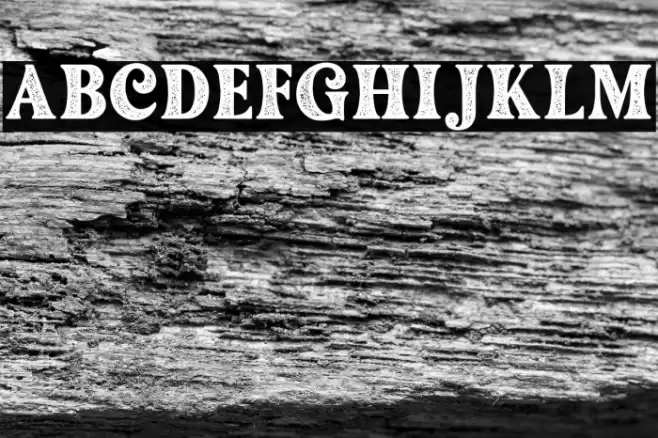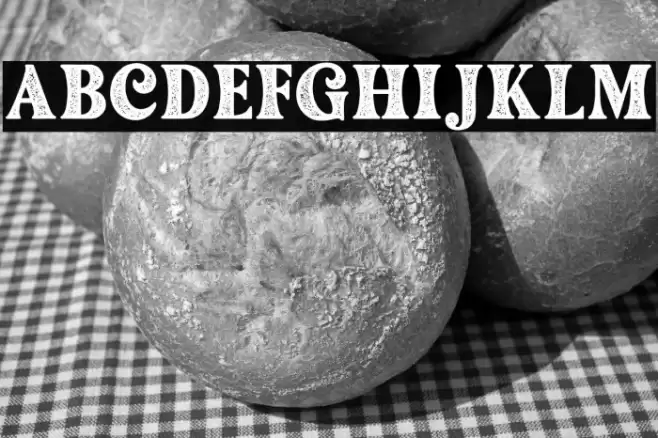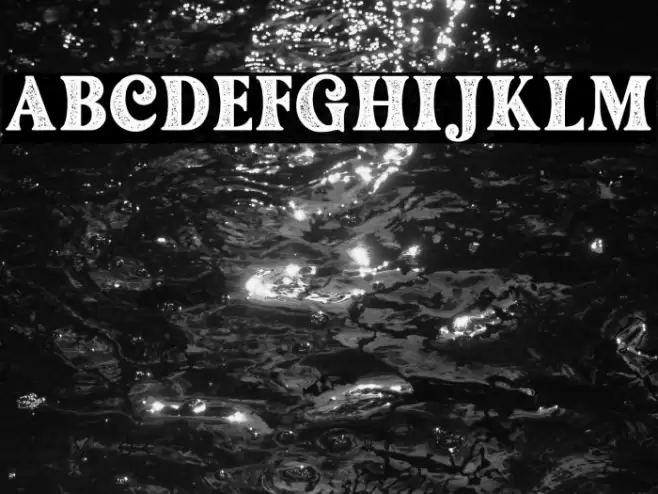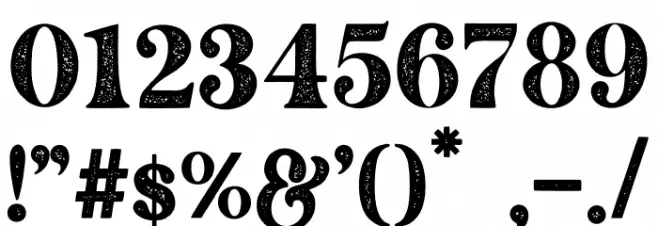
Fashion Stamp Font
Fashion Stamp Description
This font features a bold and decorative style with a textured, distressed appearance reminiscent of vintage stamps. The uppercase and lowercase letters are well-defined with thick strokes and a unique pattern that gives each character a distinct look. The numbers and special characters maintain the same textured style, adding to the overall cohesive design. The font's boldness and decorative elements make it stand out, suitable for projects that require a strong visual impact.
A bold, decorative font with a textured, vintage stamp-like appearance from Uncategorized fonts.
- Proposed Projects: Ideal for branding, poster design, vintage-themed projects, and any creative work that requires a bold, eye-catching typeface.
- Overall Style: Vintage